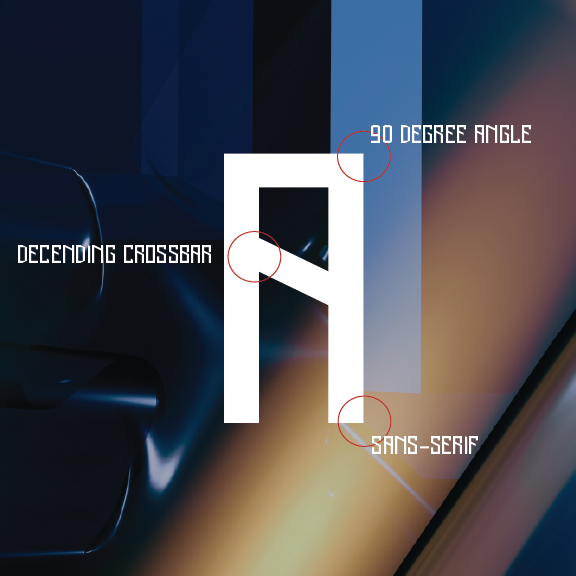
• This is a sans serif fonts with a decending crossbar and blocky looking. You can use it for something that have a strong looking vibes. Ex: album cover, concert poster or events,...